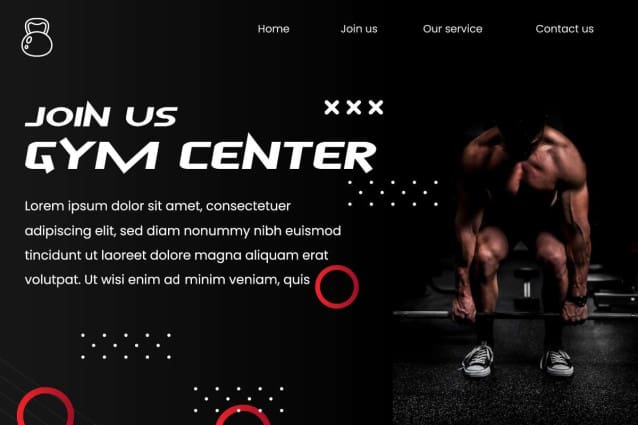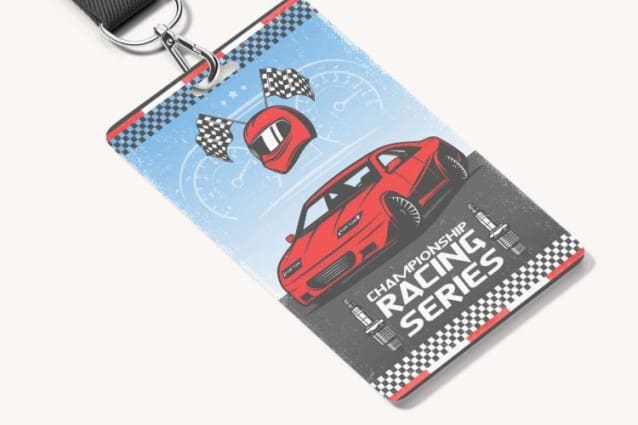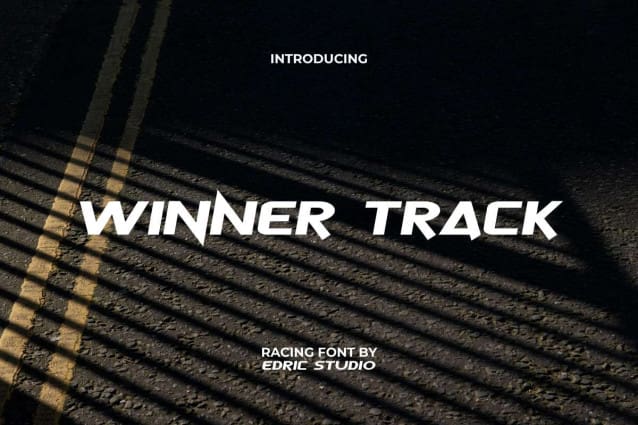
Winner Track Font
Winner Track Font is a racing sans display font with a modern unique style. The font evokes a sense of the future or conveys a modern aesthetic. Some of the corners of the letters form a perfect square which will give a different impression to your design, such as apps, billboard, blogs, brochure, cover, flyer, header, logos, packaging design, pamphlet, poster, product label, quotes, screen print, signage, sticker, tag, title, website, and more.
Winner Track Font comes with a full set of ALL CAPS for Uppercase and Lowercase letters, Number, Punctuation, Symbol, and Alternate. It’s inspired by racer tracks which makes this font a uniquely stylish feel, it would be perfect for sports related projects, but can be adapted at any time to suit your creative industry needs, such as ads, content creator, fashion, game, graphic design, gym or fitness center, jersey maker, menswear, merchandise, movie, printing, publishing, racetrack, racing, sport, travel, web designer, etc.